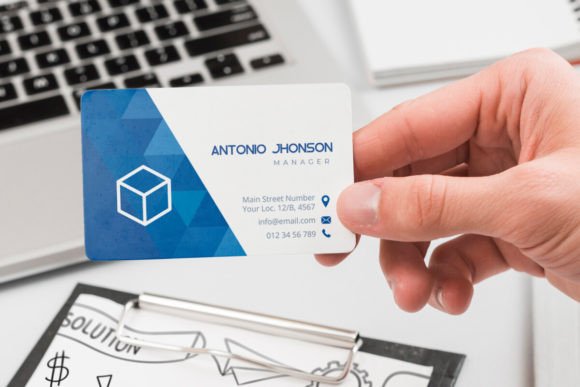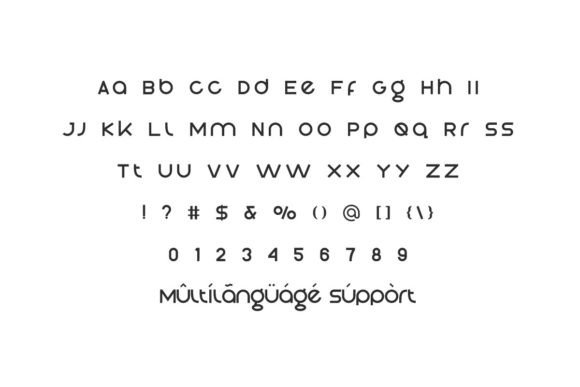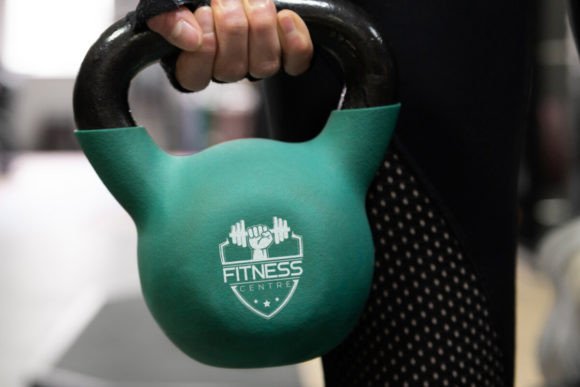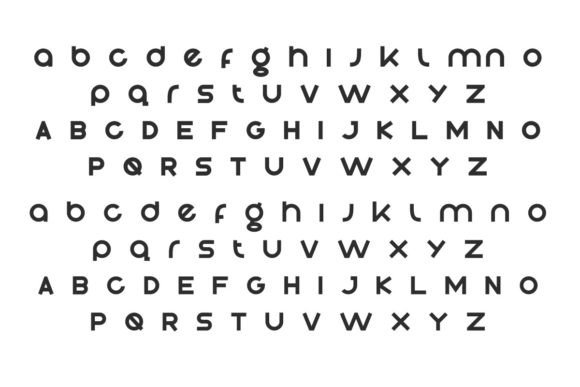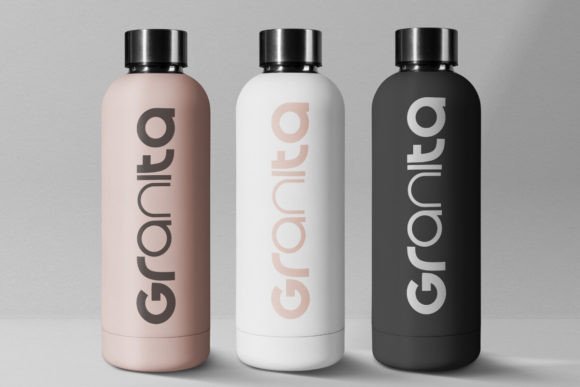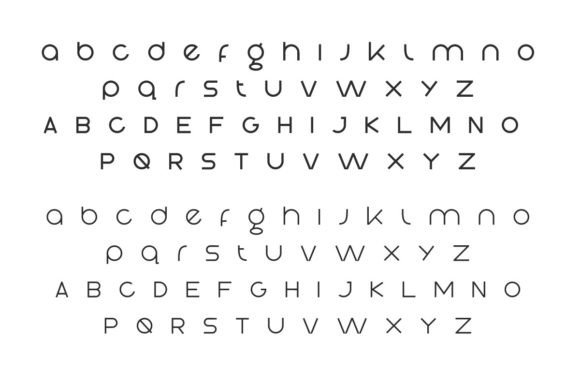
Introducing Granita Font: A Unique Stylish Sans-Serif Display Font
Are you tired of using the same old fonts for your designs? Look no further! Granita Font is a fresh and exciting sans-serif display font that’s sure to elevate your creative projects. With its distinctive circular lowercase letters, this font is guaranteed to make your designs stand out from the crowd.
What Makes Granita Font So Special?
Granita Font is a one-of-a-kind font that’s perfect for designers and crafters looking for a stylish and versatile typeface. Here are just a few features that make it so special:
- Unique Circular Shape: The lowercase letters in Granita Font have a beautiful circular shape that gives them a distinctive look and feel. This unique feature will add a touch of personality to your designs and set them apart from the rest.
- PUA Encoded: Granita Font is PUA (Private Use Area) encoded, which means you can access all of the amazing glyphs and ligatures with ease. This makes it easy to get creative and experiment with different typography styles.
- Highly Versatile: Granita Font is suitable for a wide range of industries, including café, event organizers, fashion, homeware, kids’ stuff, movies, printing, restaurants, sport, and more. Whether you’re designing a logo, brochure, or website, this font is sure to impress.
Why Choose Granita Font?
With so many fonts to choose from, why should you choose Granita Font? Here are just a few reasons why designers and crafters love this font:
- Easy to Read: Despite its unique circular shape, Granita Font is still highly legible and easy to read. This makes it perfect for body text, headings, and titles.
- Highly Customizable: With its PUA encoding, you can easily access and customize the glyphs and ligatures to create a unique typography style that suits your brand.
- Time-Saving: Granita Font comes with a range of pre-designed glyphs and ligatures, saving you time and effort when creating your designs.
How to Use Granita Font in Your Designs
Ready to get started with Granita Font? Here are a few tips on how to use it in your designs:
- Pair it with Other Fonts: Granita Font looks great when paired with other sans-serif fonts. Try pairing it with a bold font for headings and a clean font for body text.
- Experiment with Ligatures: With its PUA encoding, you can easily access and experiment with different ligatures to create a unique typography style.
- Use it for Headings and Titles: Granita Font is perfect for headings and titles, where its unique circular shape can really shine.
Who Can Benefit from Granita Font?
Granita Font is perfect for a wide range of designers and crafters, including:
- Graphic Designers: Whether you’re designing a logo, brochure, or website, Granita Font is a great addition to your font library.
- Event Organizers: Create stunning event branding with Granita Font, from invitations to signage.
- Fashion Designers: Add a touch of style to your fashion designs with Granita Font, perfect for labels, packaging, and marketing materials.
- Crafters: Use Granita Font to add a personal touch to your craft projects, from handmade cards to DIY packaging.
In conclusion, Granita Font is a unique and stylish sans-serif display font that’s perfect for designers and crafters looking to elevate their creative projects. With its distinctive circular shape, PUA encoding, and high versatility, this font is sure to impress. Whether you’re designing a logo, brochure, or website, Granita Font is a great addition to your font library.